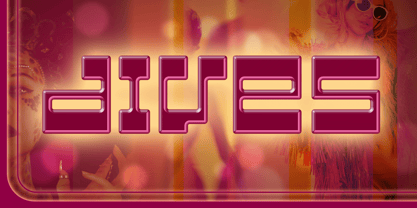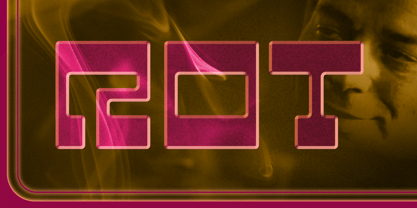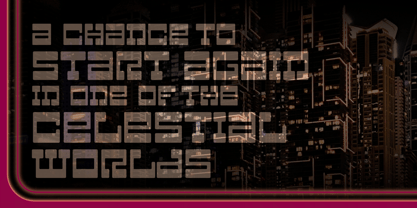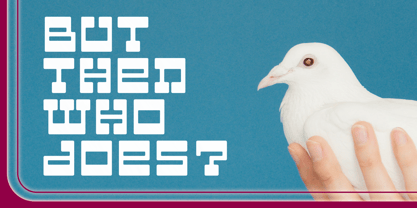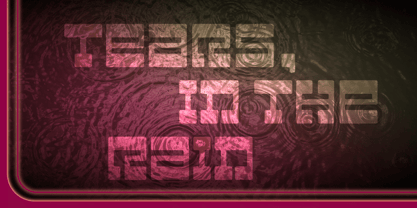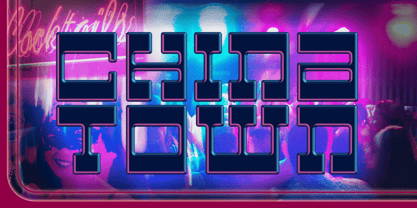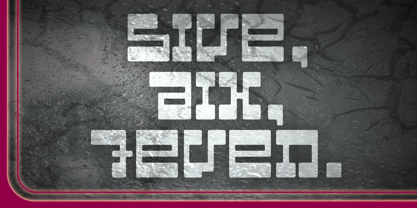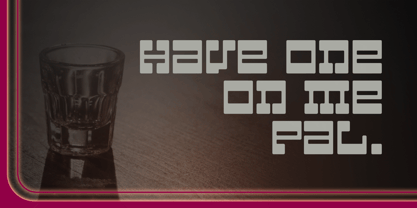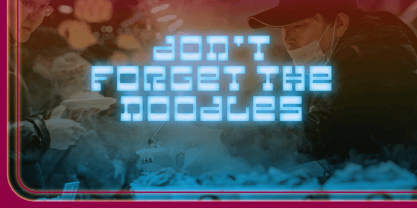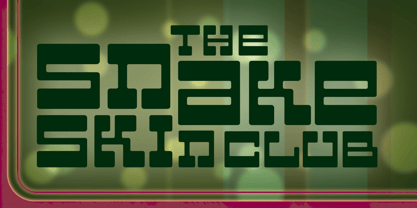
Rot
The Rot Font Family was designed by Michael Kovacevich and published by MKGD. Rot contains 1 styles. More about this family
Rot is clunky, clumsy, and utilitarian. It comes straight from a second rate oracle’s prognostications of a not-so-distant dystopian future. A place where film noir meets twenty first century computer cards; and rainy melancholy nights meet global warming. It speaks of a world that welcomes everyone; provided that they are romantically inclined to living life at the short end of the stick. Metaphorically, Rot is a shot of hard liquor served in a dirty glass.